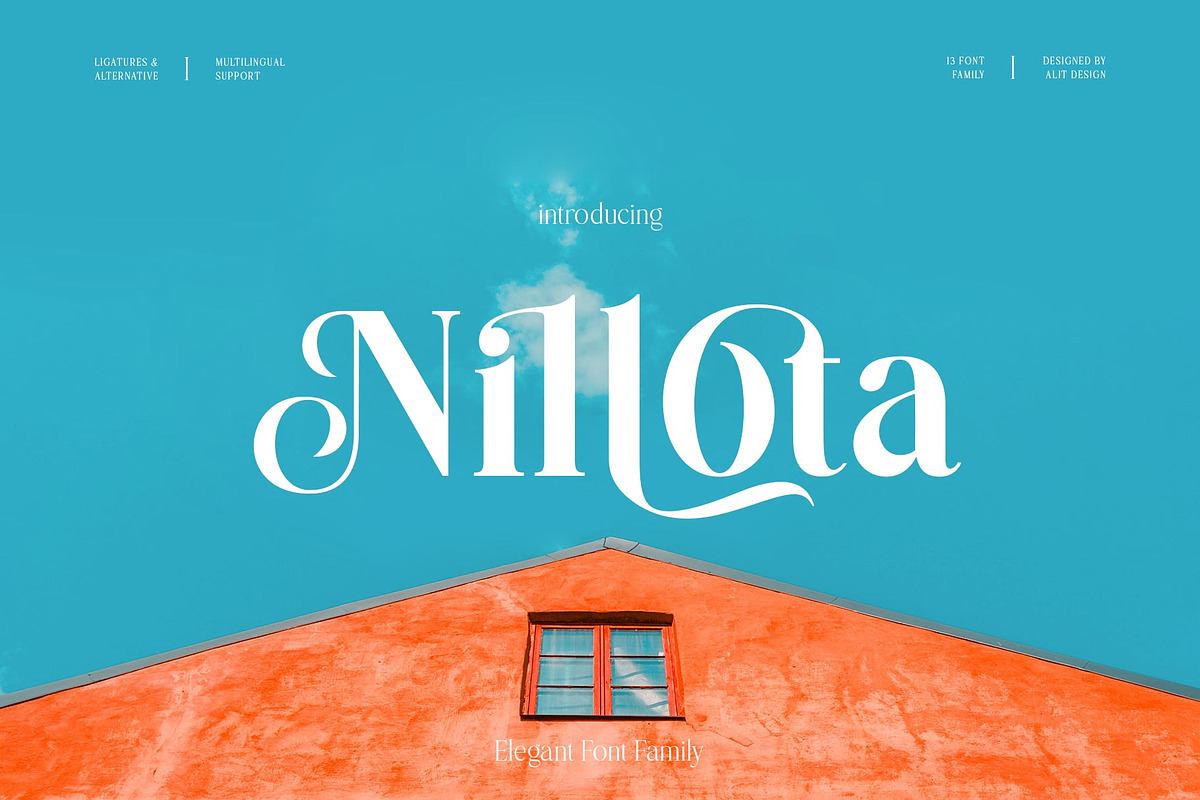
Nilota Typeface Free Download is an elegant and sophisticated font that combines the beauty of classic letterforms with modern details. With its clean lines, well-proportioned design, and a touch of grace, Nilota is ideal for editorial design, branding, logos, packaging, and high-end web design.
This versatile font can be used in both large headings and smaller body text, offering clarity and elegance in any context. Its timeless appeal makes it perfect for premium brands, fashion magazines, and luxury products.